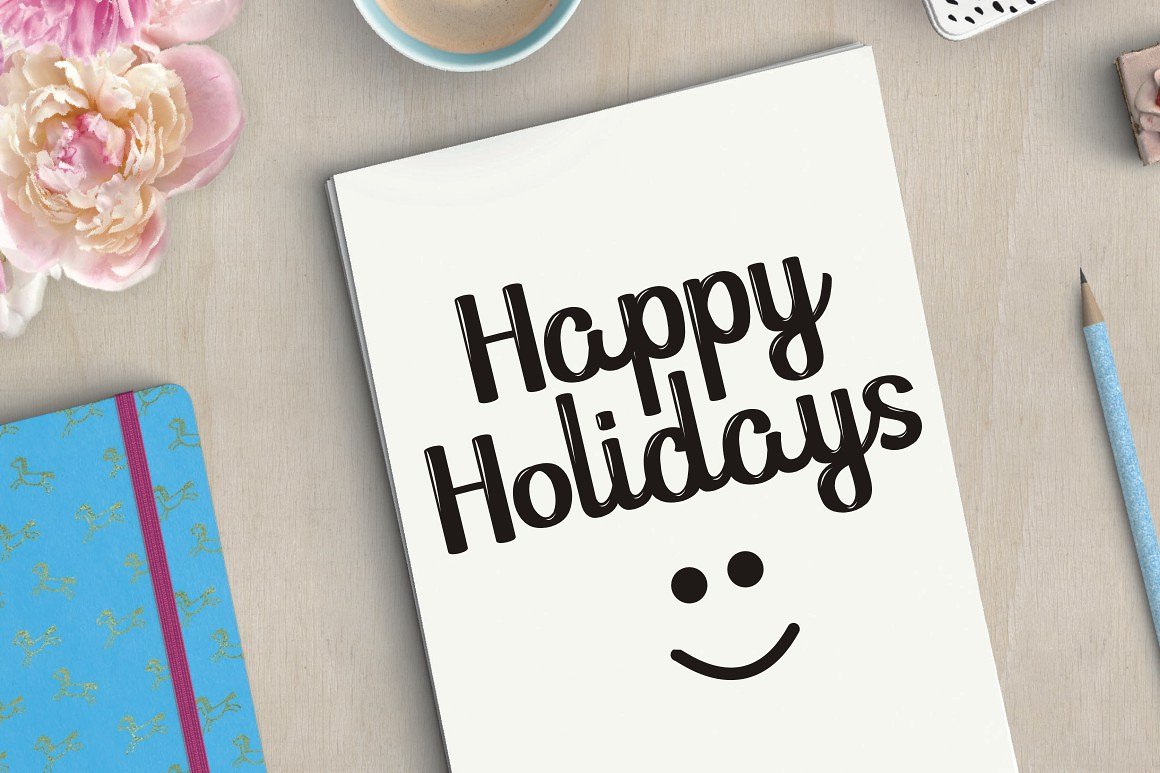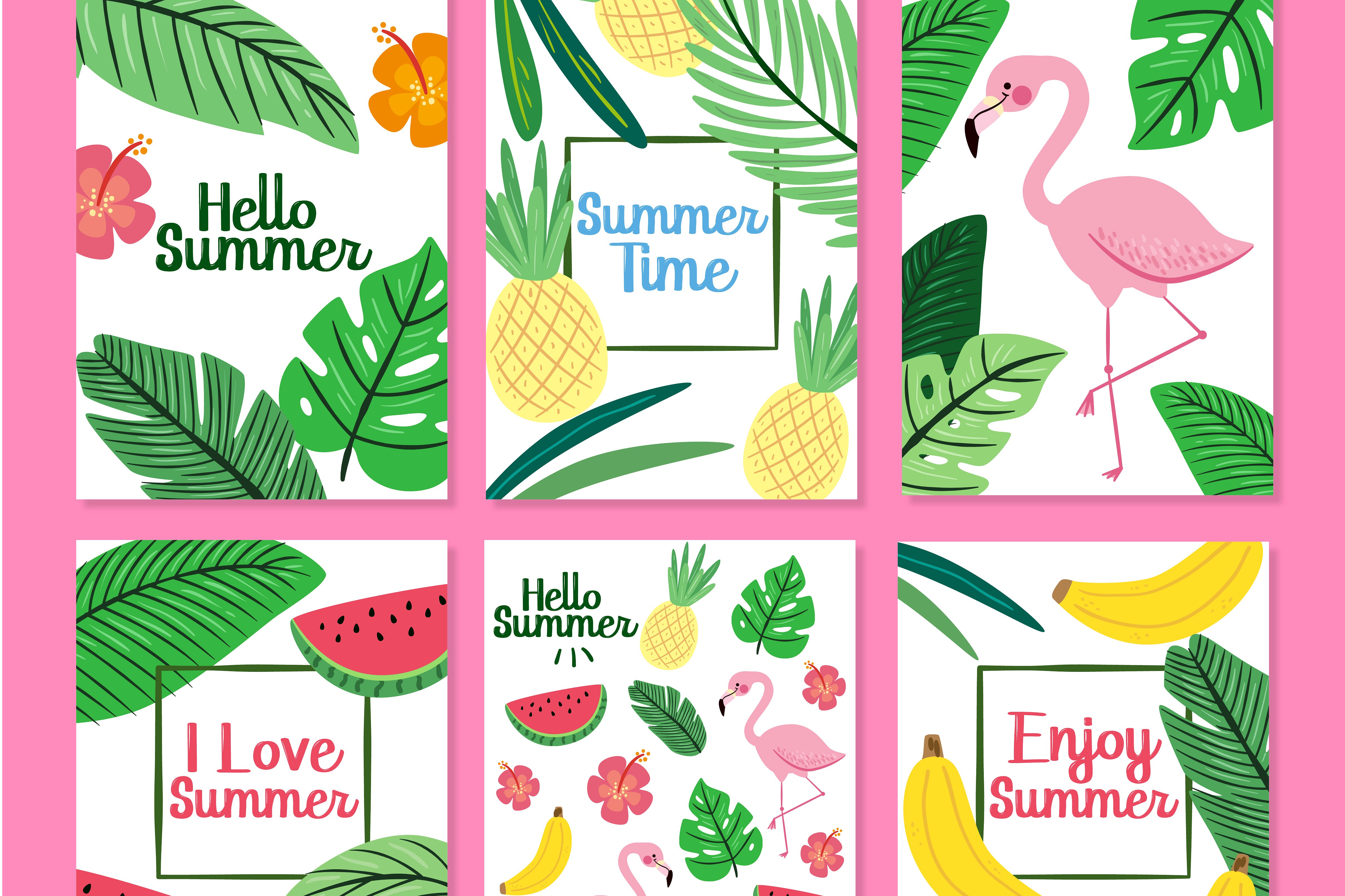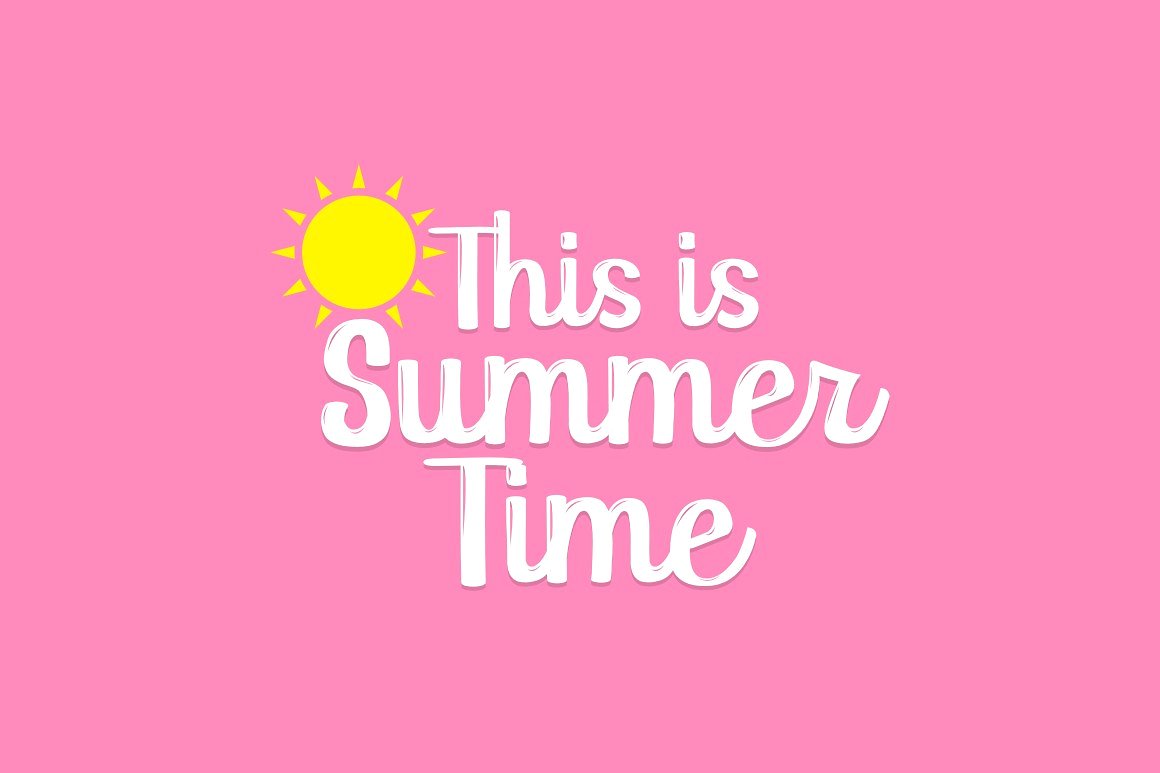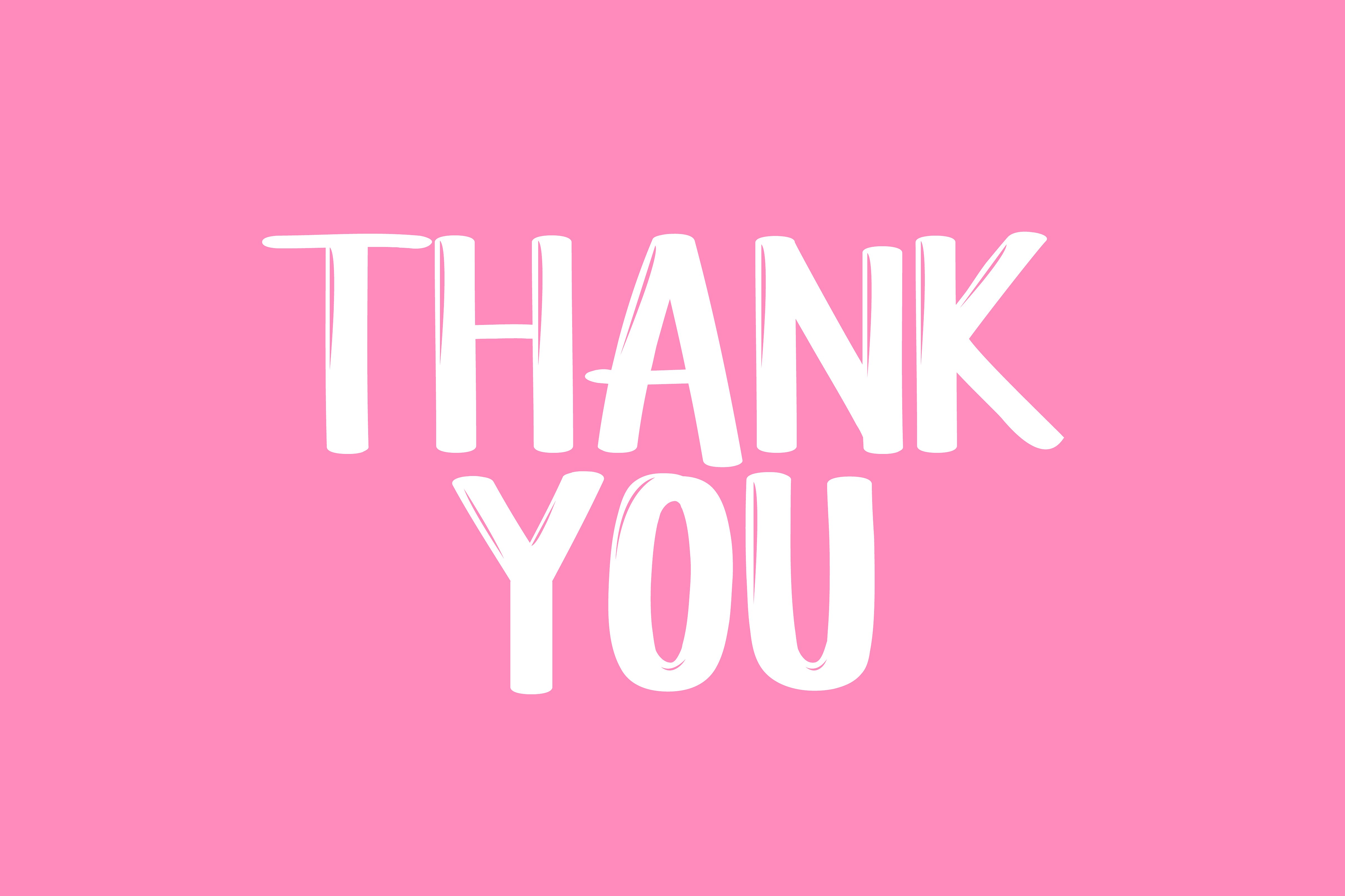
Introducing Hello Dina Font: A Beautiful Hand-Lettered Script
Hello Dina is a stunning hand-lettered script created by Debut Studio, a talented team of designers who strive to produce high-quality fonts for crafters and designers alike. This lovely font has gained popularity among designers, crafters, and DIY enthusiasts due to its unique and elegant appearance.
What Makes Hello Dina Font Special?
Hello Dina font is a neat-looking script that exudes a sense of sophistication and charm. Its hand-lettered style gives it a personal touch, making it perfect for projects that require a human feel. The font’s creator, Debut Studio, has carefully crafted each letter to ensure that it is legible, yet stylish and visually appealing.
Key Features of Hello Dina Font
- Hand-lettered script: Hello Dina font is a beautifully hand-crafted script that adds a personal touch to any project.
- Neat and elegant: The font’s neat and elegant appearance makes it suitable for a wide range of projects, from wedding invitations to DIY crafts.
- High-quality design: Debut Studio has designed Hello Dina font with precision and attention to detail, ensuring that it is both legible and visually appealing.
- Versatile: Hello Dina font can be used for various projects, including digital and print materials, such as posters, flyers, brochures, and more.
Use Cases for Hello Dina Font
Hello Dina font is an excellent choice for designers and crafters who work on projects that require a personal touch. Here are some use cases where Hello Dina font shines:
- Wedding invitations and stationery: The font’s elegant appearance makes it perfect for wedding invitations, save-the-date cards, and other wedding-related stationery.
- DIY crafts: Hello Dina font is an excellent choice for DIY craft projects, such as handmade cards, gift tags, and scrapbooking.
- Digital and print materials: The font can be used for various digital and print materials, including posters, flyers, brochures, and social media graphics.
- Branding and packaging: Hello Dina font can be used for branding and packaging projects, such as logo design, product labels, and packaging materials.
Tips for Using Hello Dina Font
To get the most out of Hello Dina font, here are some tips to keep in mind:
- Pair it with other fonts: Hello Dina font can be paired with other fonts to create a unique and visually appealing combination.
- Experiment with colors: The font looks great in various colors, so don’t be afraid to experiment and find the perfect color scheme for your project.
- Use it for headings and titles: Hello Dina font is perfect for headings and titles, as it adds a touch of elegance and sophistication to any project.
| Font Name | Hello Dina Font |
| Author | Debut Studio |
Hello Dina font is a beautiful hand-lettered script created by Debut Studio. Its unique and elegant appearance makes it perfect for designers and crafters who work on projects that require a personal touch. With its versatility, high-quality design, and range of use cases, Hello Dina font is an excellent addition to any designer’s or crafter’s toolkit.